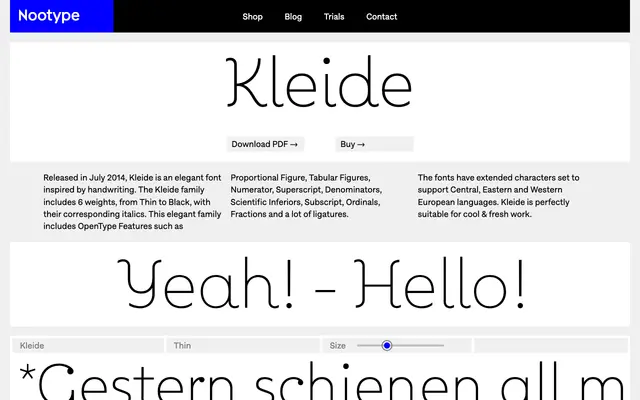
Kleide
A handwriting-inspired humanist sans in six weights with italics, released by Nootype in 2014 with broad European character support.
Six weights from Thin to Black, each with a matching italic, give the family reasonable range for editorial and branding work. Calligraphic influence runs through the letterforms, lending a lightness suited to refined or fashion-adjacent contexts. OpenType features include fractions, ordinals, proportional and tabular figures, and a generous set of ligatures, with character coverage extending to Central, Eastern and Western European languages.
Described as inspired by handwriting, Kleide sits within the humanist sans tradition where calligraphic origins inform letterform construction and overall elegance.